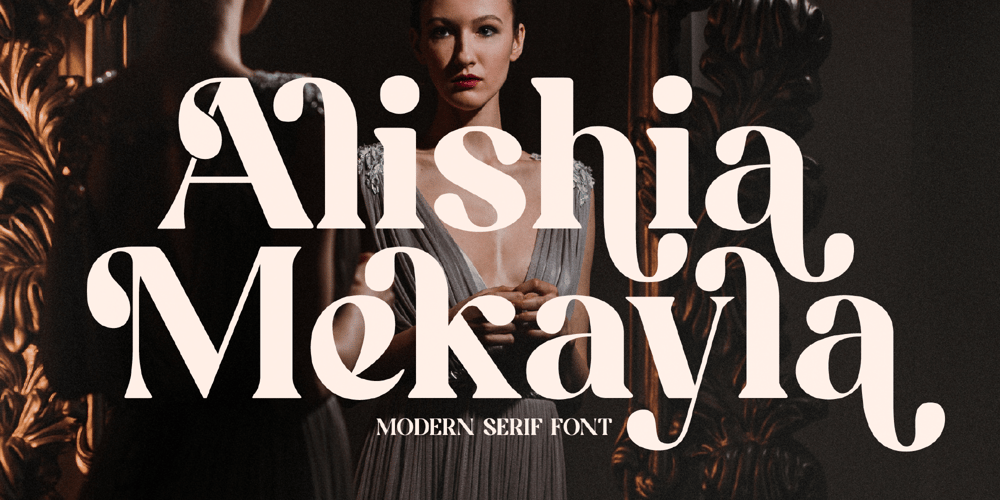
Alishia Mekayla Font Family was designed by Heru Utama Putra and published by Letterena Studios. Alishia Mekayla contains 2 styles and family package options. Alishia Mekayla is a modern and classic serif font with its own unique style & modern looks.This typeface is perfect for an elegant & luxury logo, book or movie title design, fashion brand, magazine, clothes, lettering, quotes, and so much more. This font is PUA encoded, which means you can access all of the glyphs and swashes with ease!